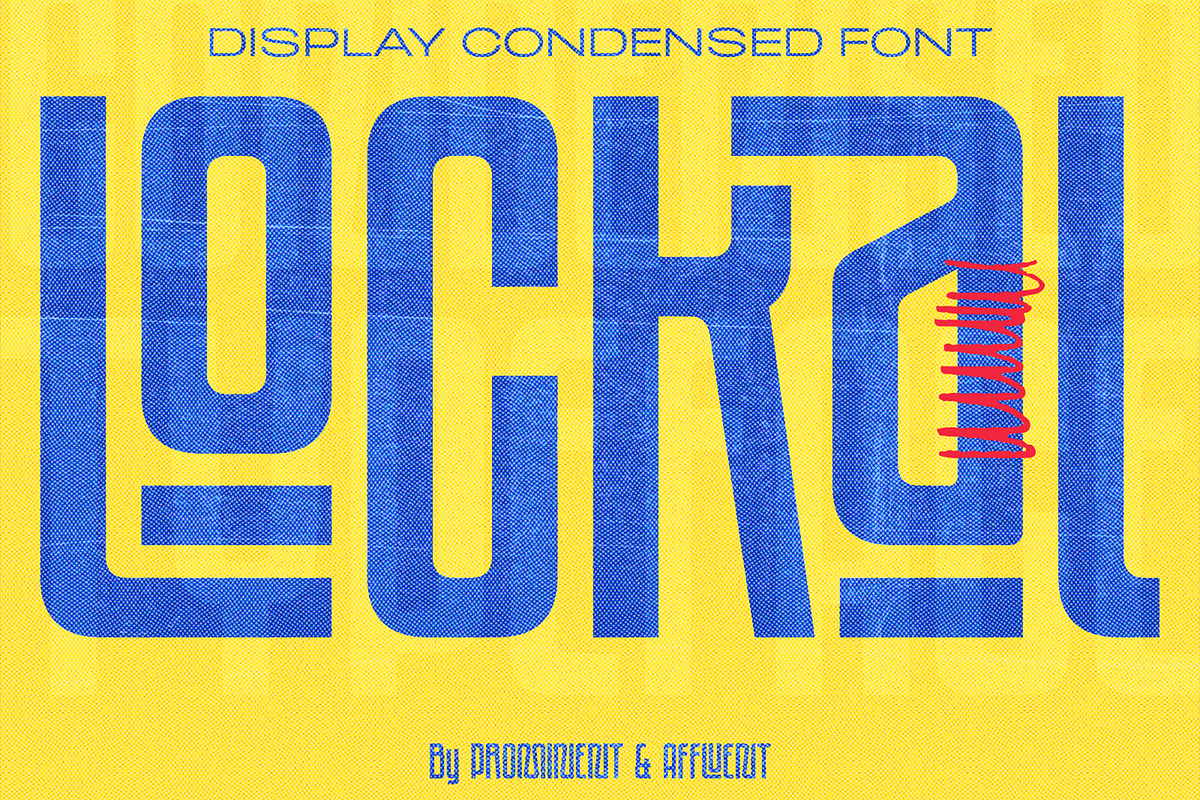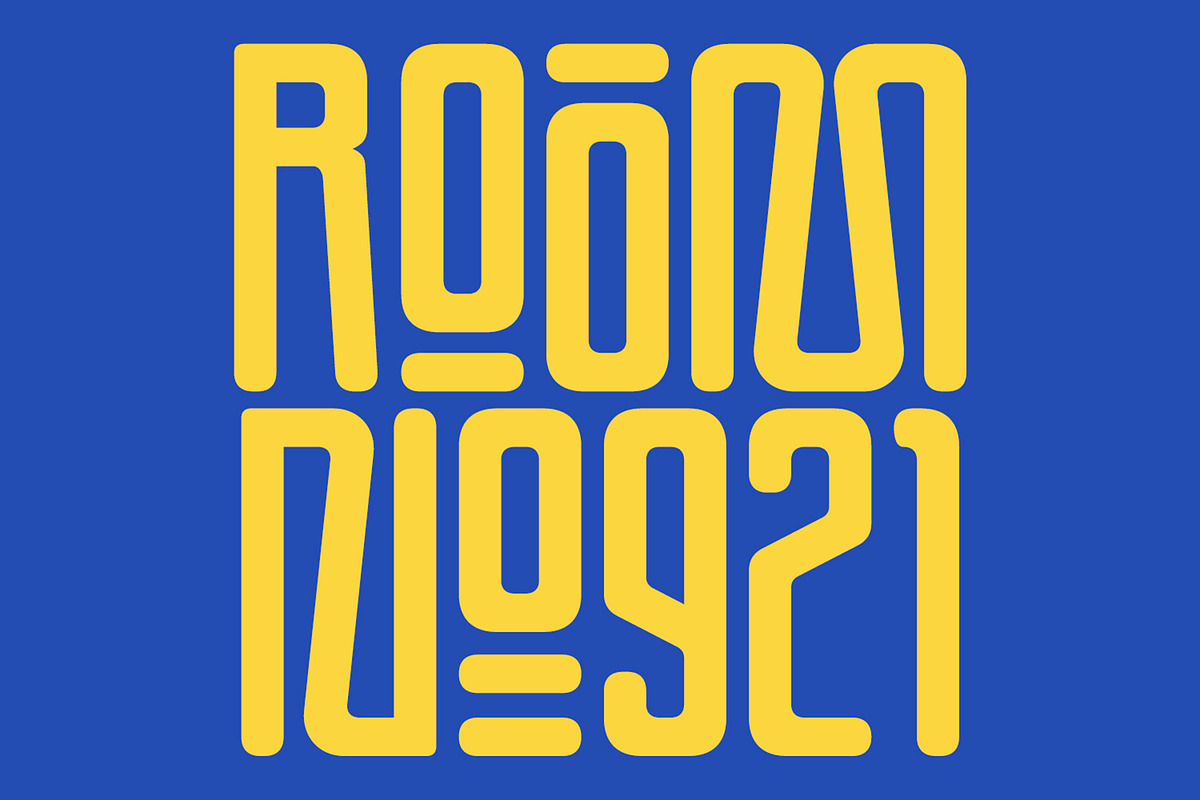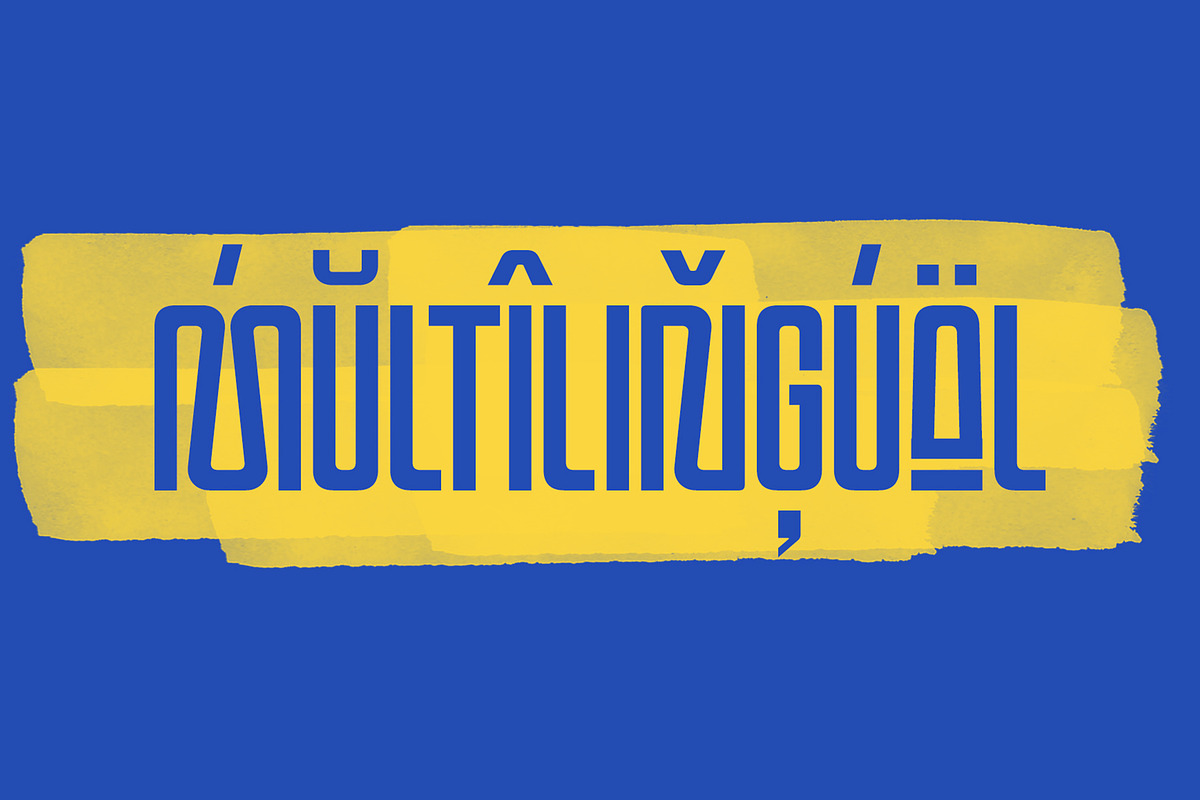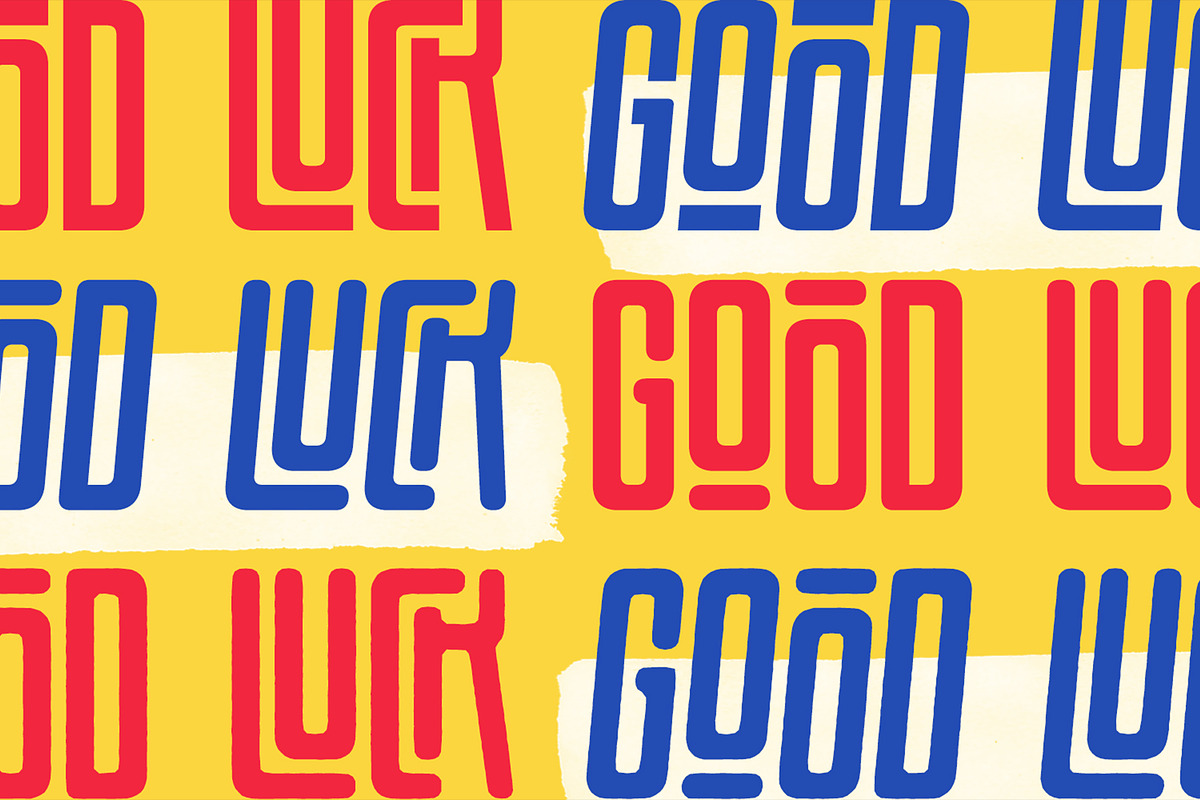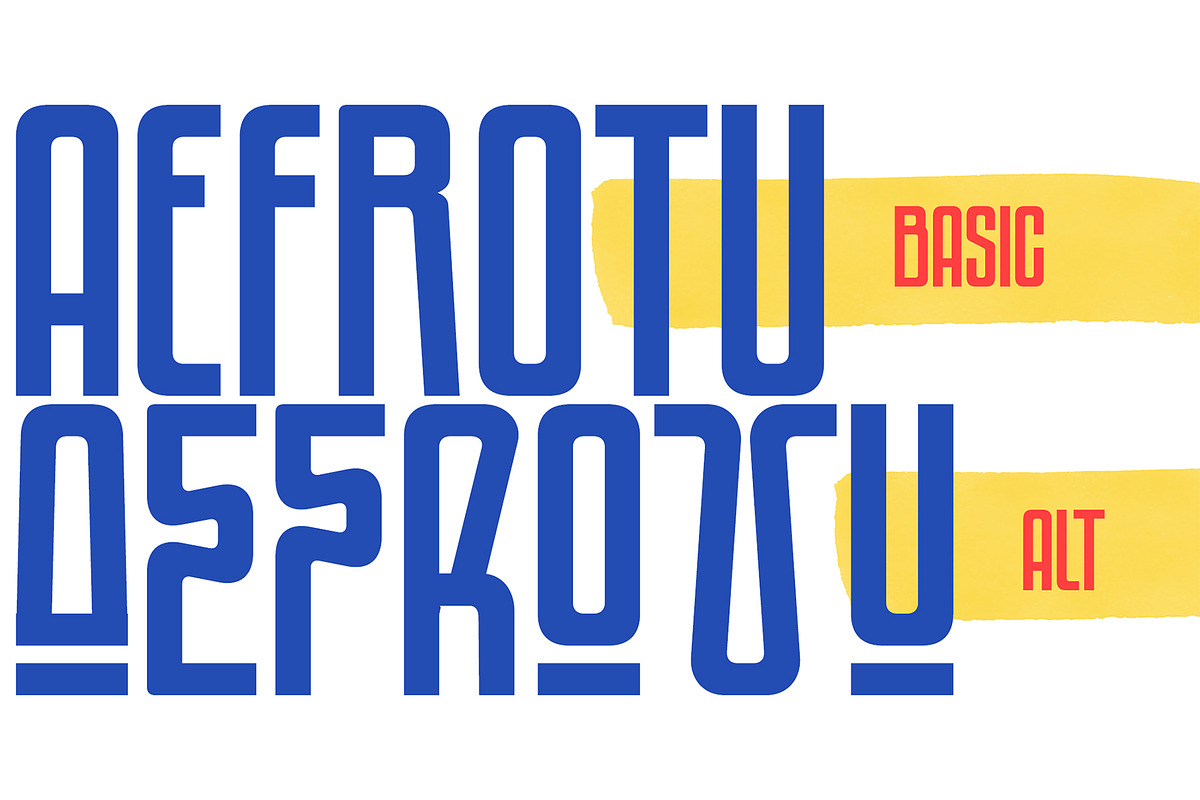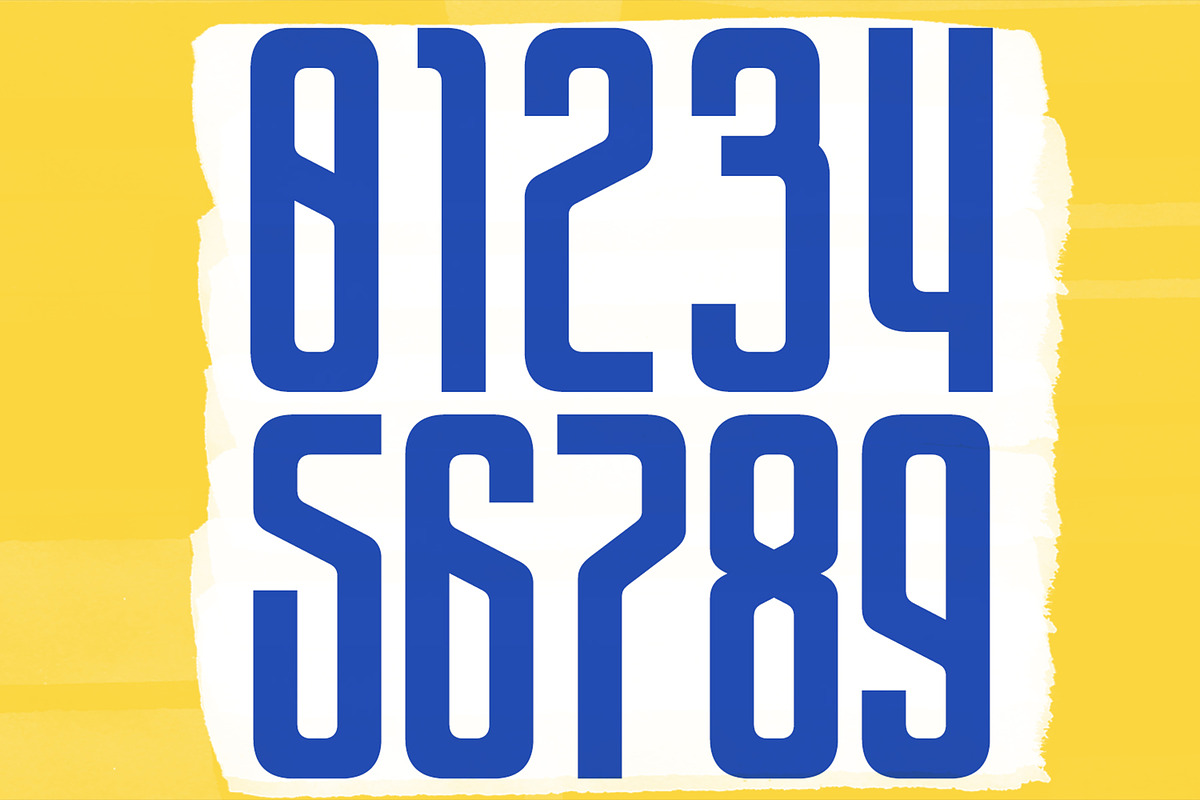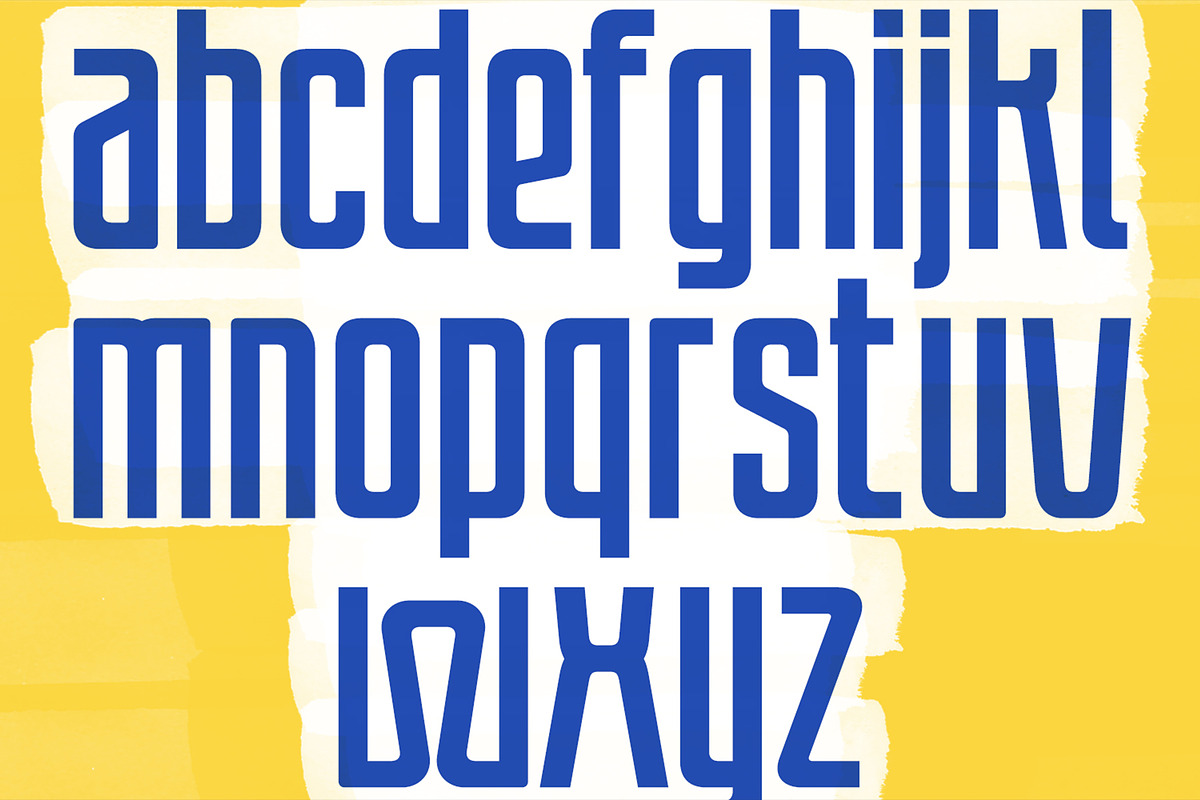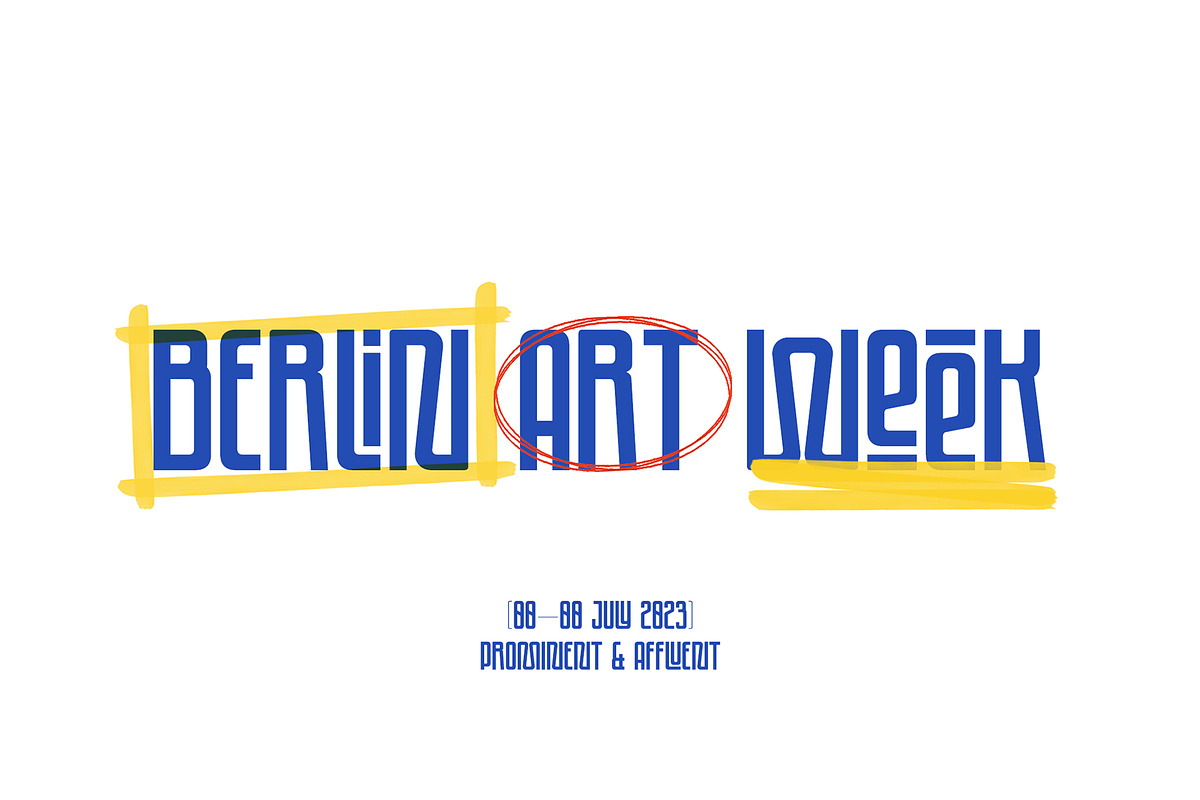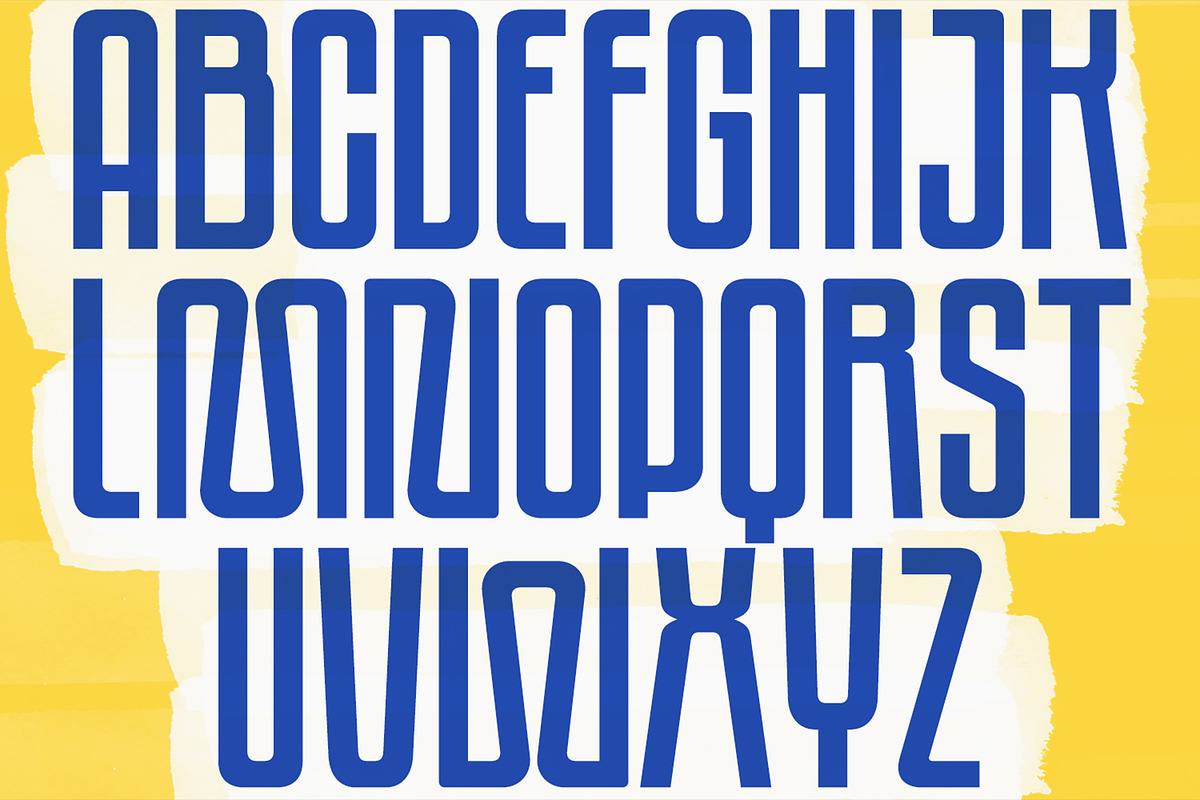
Lockal - Display Font
Lockal - a display font designed to transform your projects into visual masterpieces. Crafted with a solid, robust structure and an extensive array of meticulously designed ligatures, Lockal offers a level of sophistication that sets it apart. But that’s not all – Lockal doesn’t stop at three styles, it goes the extra mile by offering Regular, Rounded, and Rough variations, each accompanied by its captivating oblique version. This means you have six unique styles at your disposal, ready to add depth and personality to your designs.
Whether you’re working on a branding project, designing a poster, or creating captivating visuals, Lockal is the key to unlocking your creative potential. Its combination of a sturdy structure and rich ligatures, coupled with the versatility of three distinct styles, ensures that Lockal is the ultimate tool for artistic expression.
Don’t settle for the mundane – let Lockal redefine your design process. Elevate your projects with Lockal and witness the magic unfold. Get your hands on Lockal now and embark on a journey of unparalleled creativity!